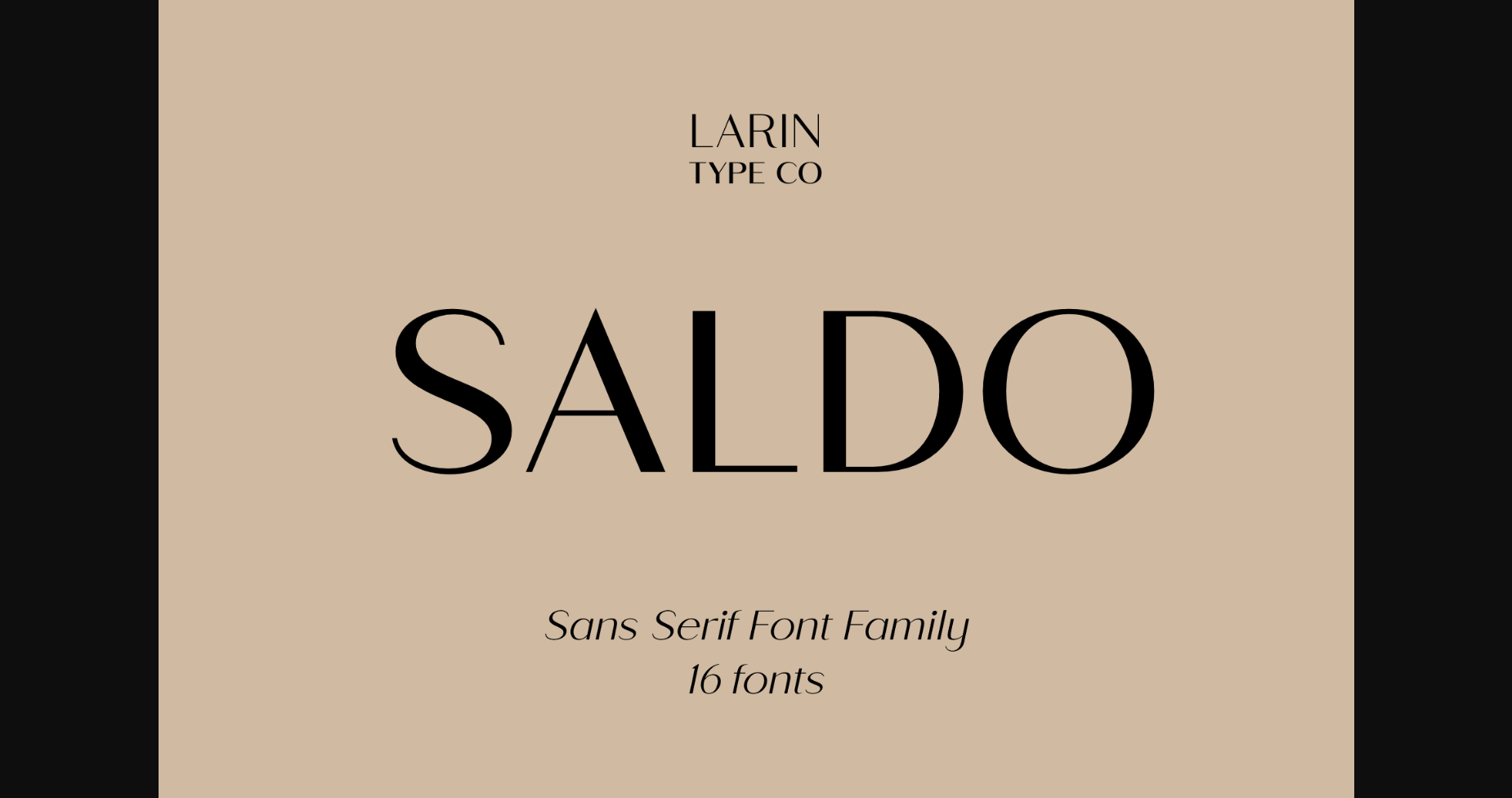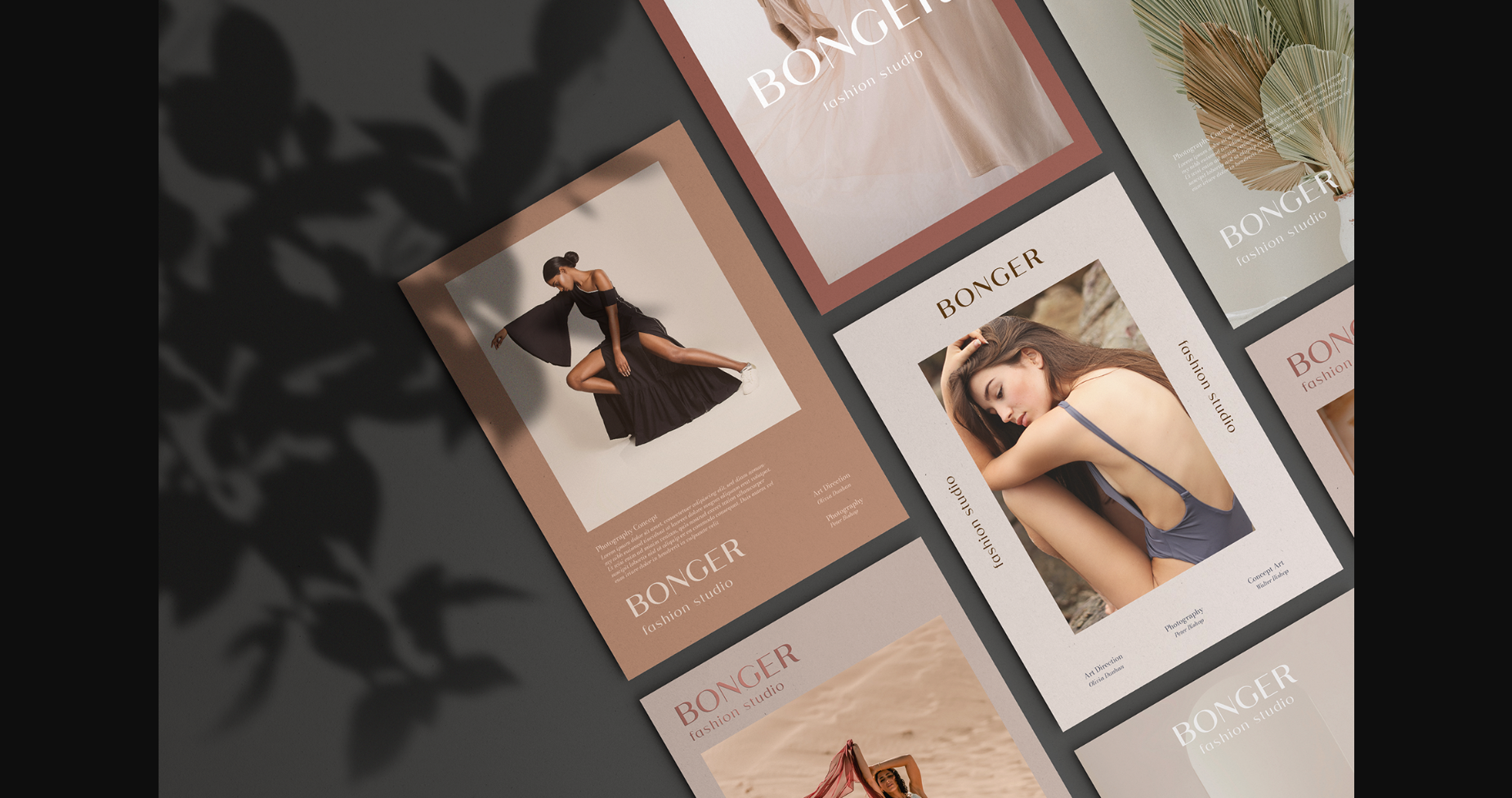
About Saldo Font
Saldo is a modern and sleek sans-serif font designed for maximum readability and legibility. With its clean and crisp lines, Saldo is perfect for any project that requires a professional and sophisticated look. Its minimalistic design is versatile and can be used in a variety of settings, from business documents to branding and marketing materials. Saldo is a great choice for designers who want a font that is both contemporary and classic.